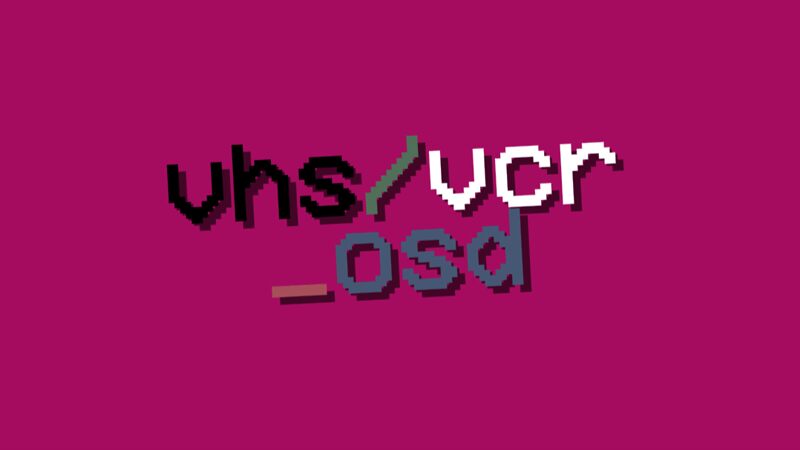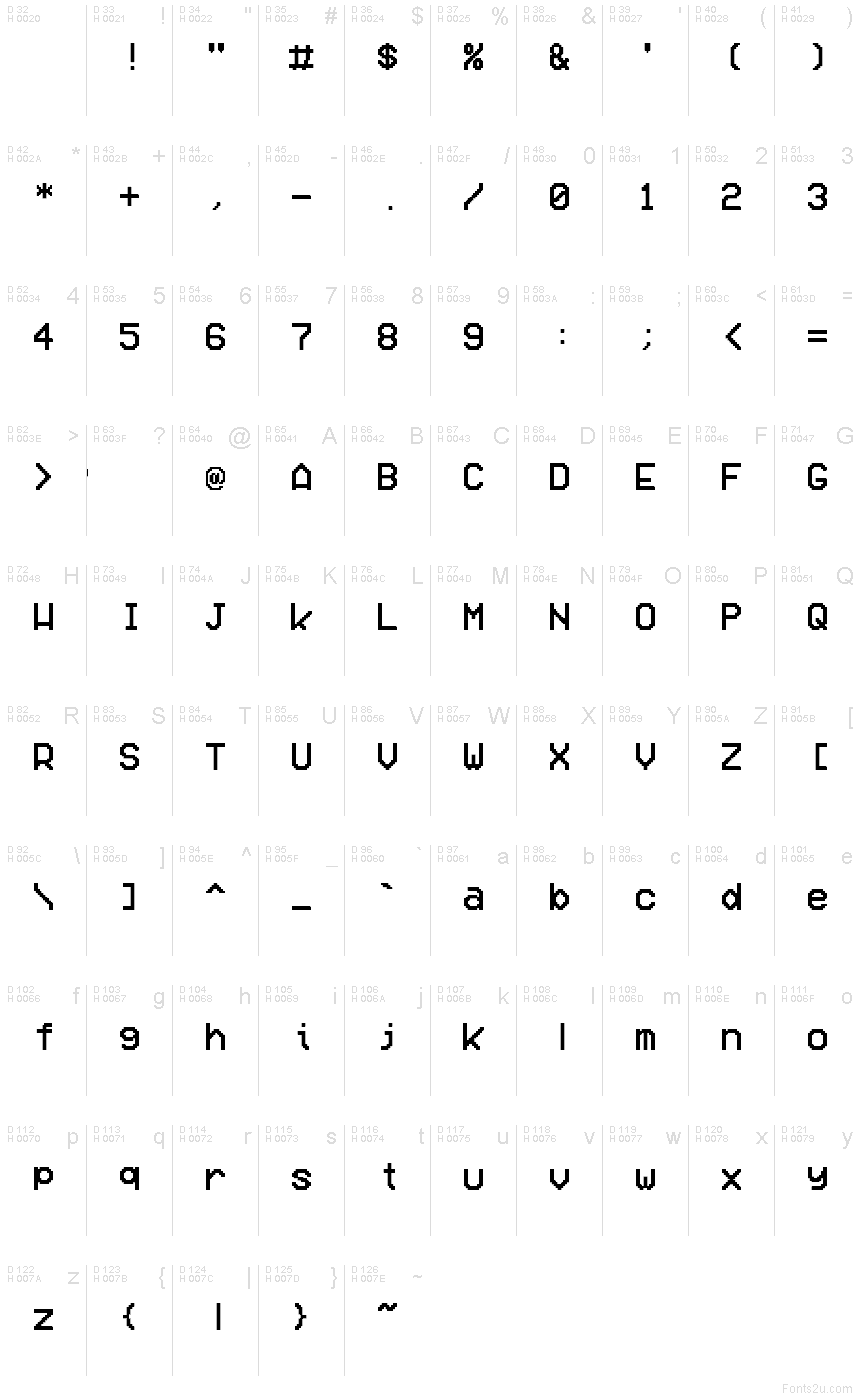
vhs/vcr osd Regular
Vhs/vcr os font by Azriel Ayisi is a free pixelated font inspired by vintage retro aesthetics along with the digital aesthetic of early computing which defined the 90s era. These ideas and elements made this font truly reminiscent of nostalgic objects and experiences such as old video cassette records, and games, which today give it historic technological value.
Use the typeface beautifully in posters, T-shirts, web design projects, and any other piece that will artistically project your stylishly trendy brands. Other use cases include video game graphics, stickers, logos & logotypes, typography posters designs or artworks in general.